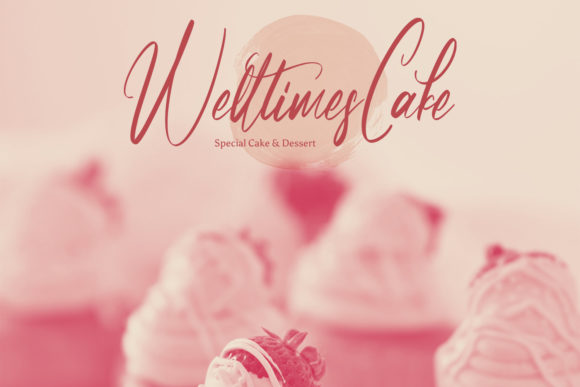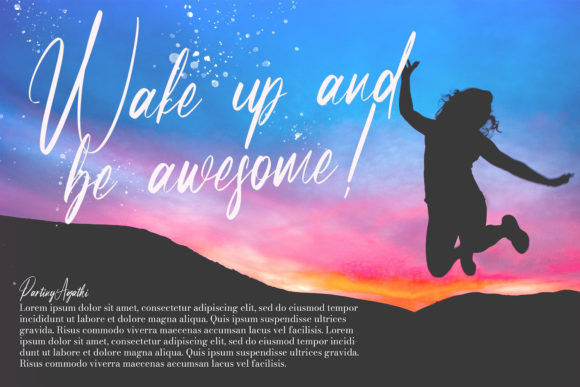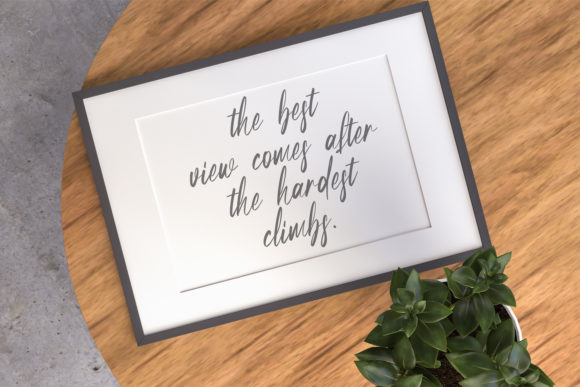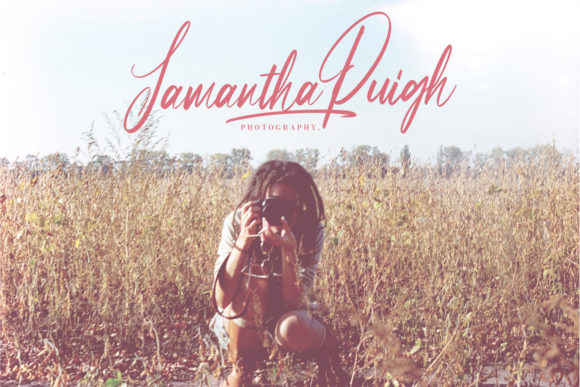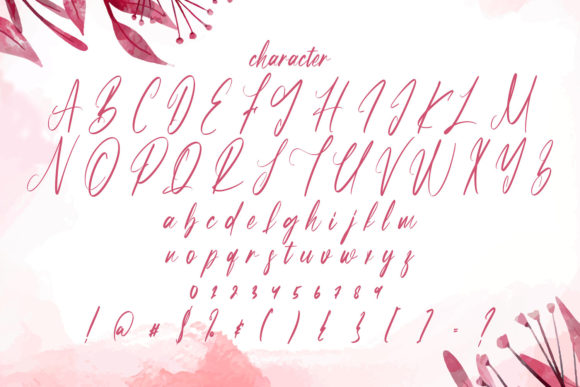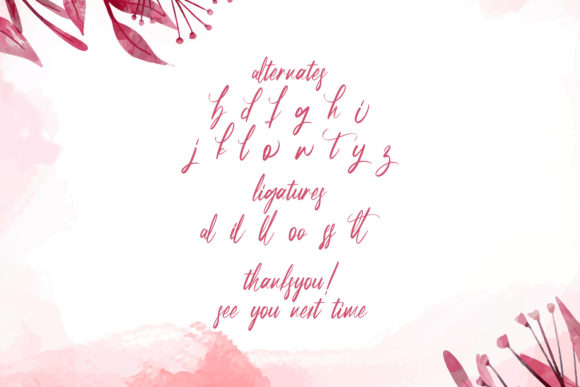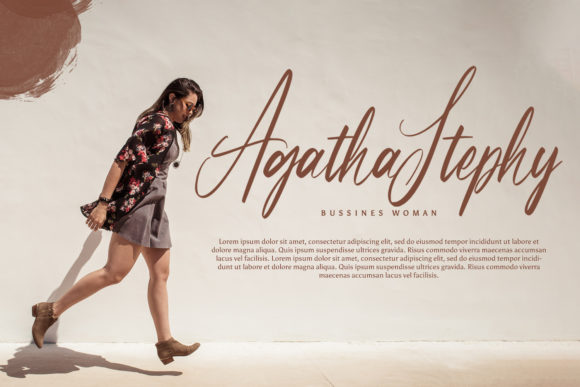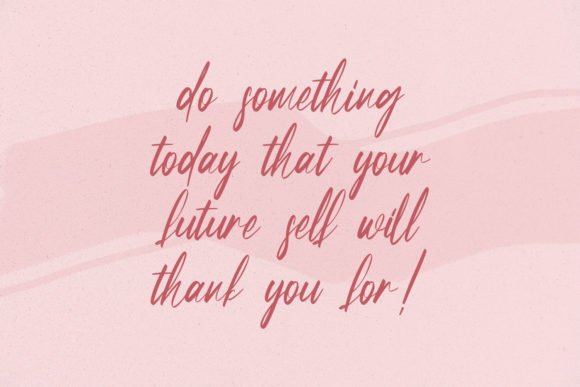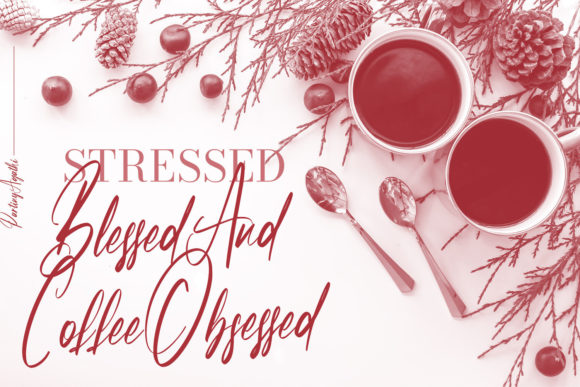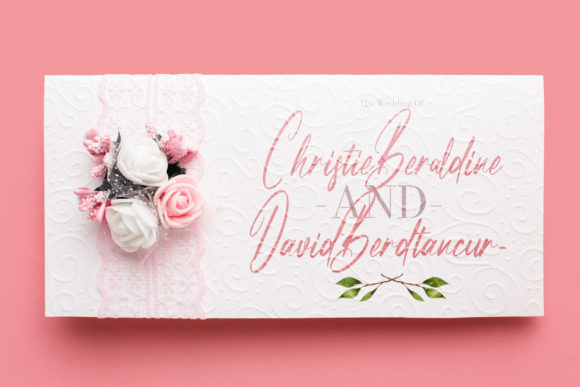
Partiny Agathi Font
About Partiny Agathi Font
Partiny Agathi is a fashionable and refined script font that exudes class, elegance, and a modern aesthetic. With its sleek and sophisticated letterforms, this font is perfect for a wide range of design projects.
The stylish and refined nature of Partiny Agathi makes it an excellent choice for logos and branding materials. Its clean lines and graceful curves create a sense of professionalism and sophistication, making your brand stand out from the crowd. Whether you’re designing a logo for a luxury brand, a high-end fashion label, or a premium service, Partiny Agathi adds a touch of elegance and exclusivity.
Invitations and stationery also benefit from the beauty of Partiny Agathi. Whether you’re designing wedding invitations, event announcements, or personalized stationery, this font adds a touch of refinement and charm. Its modern look and elegant script create a sense of celebration and sophistication, setting the tone for your special occasion.
When it comes to social media posts and digital graphics, Partiny Agathi’s stylish and modern appeal shines through. It brings a sense of professionalism and flair to your social media feed, making your posts and content visually engaging and captivating. Use it for quotes, promotional graphics, or any other design element that needs a touch of elegance and modernity.
Partiny Agathi’s versatility extends to various design projects, from brochures and packaging to editorial layouts and advertisements. Its clean and legible letterforms ensure readability while adding a touch of sophistication to your designs. The modern look and refined style of Partiny Agathi make it a perfect choice for any project that requires a classy and elegant touch.
In conclusion, Partiny Agathi is a fashionable and refined script font that brings a sense of class, elegance, and modernity to your design projects. Its versatility makes it suitable for logos, branding, invitations, stationery, social media posts, and more. Embrace the sophistication of Partiny Agathi and elevate your designs to new heights of elegance and style.